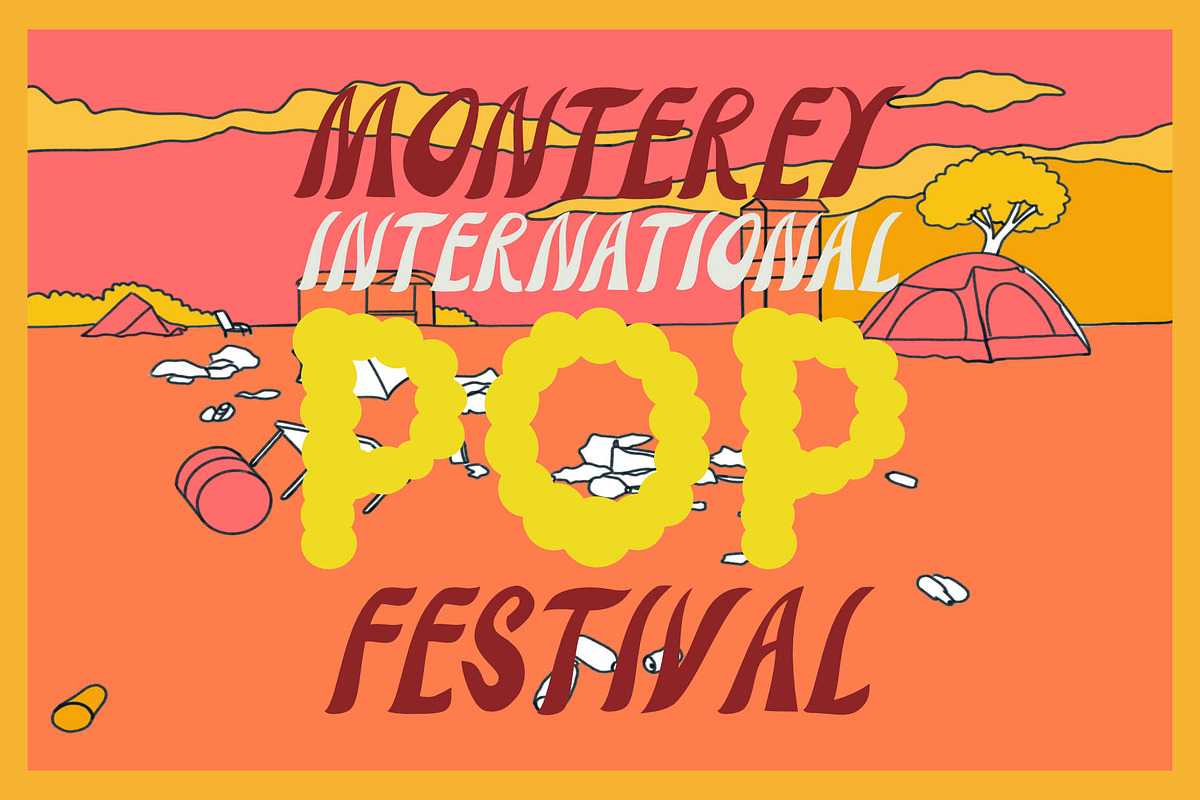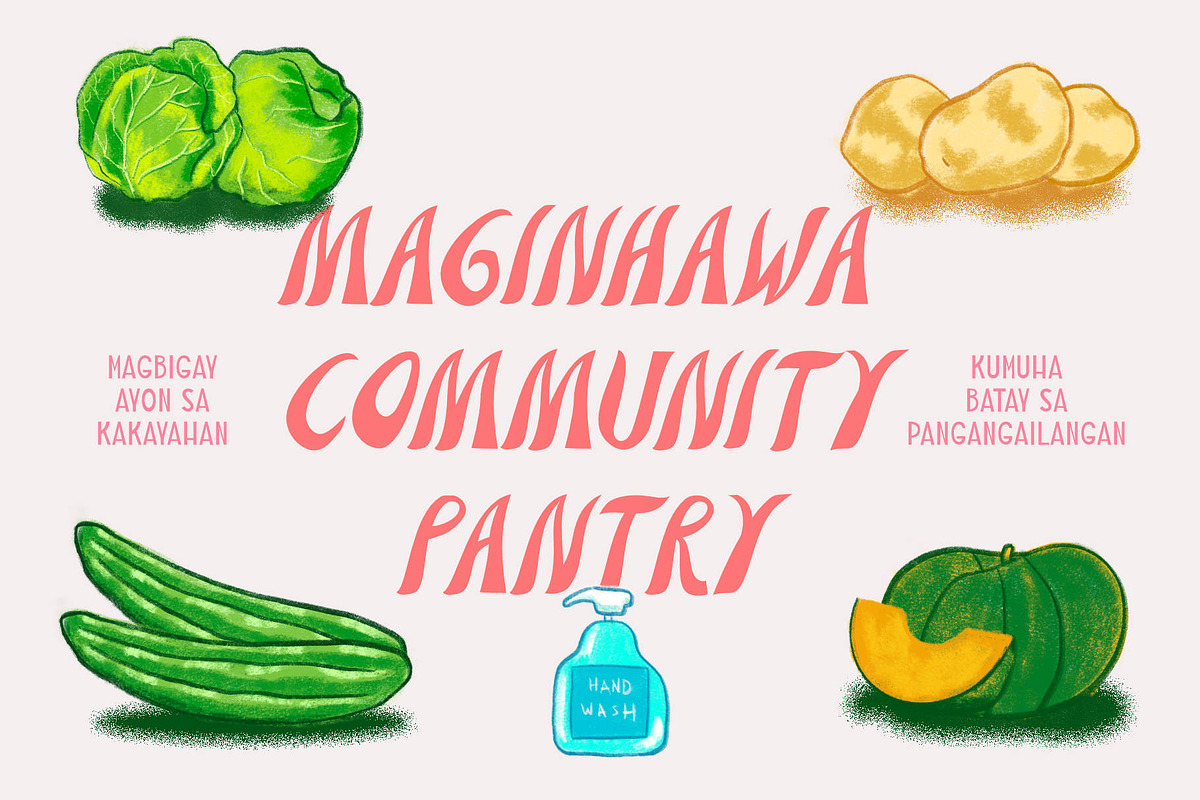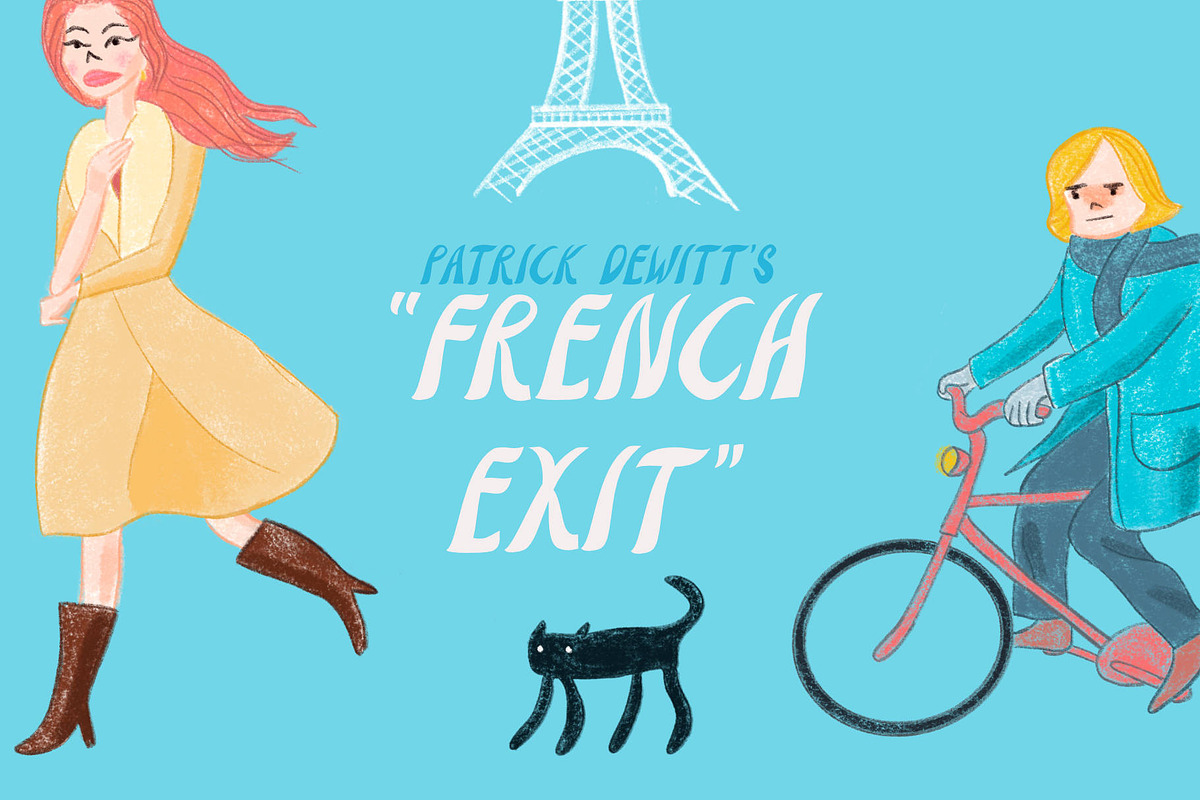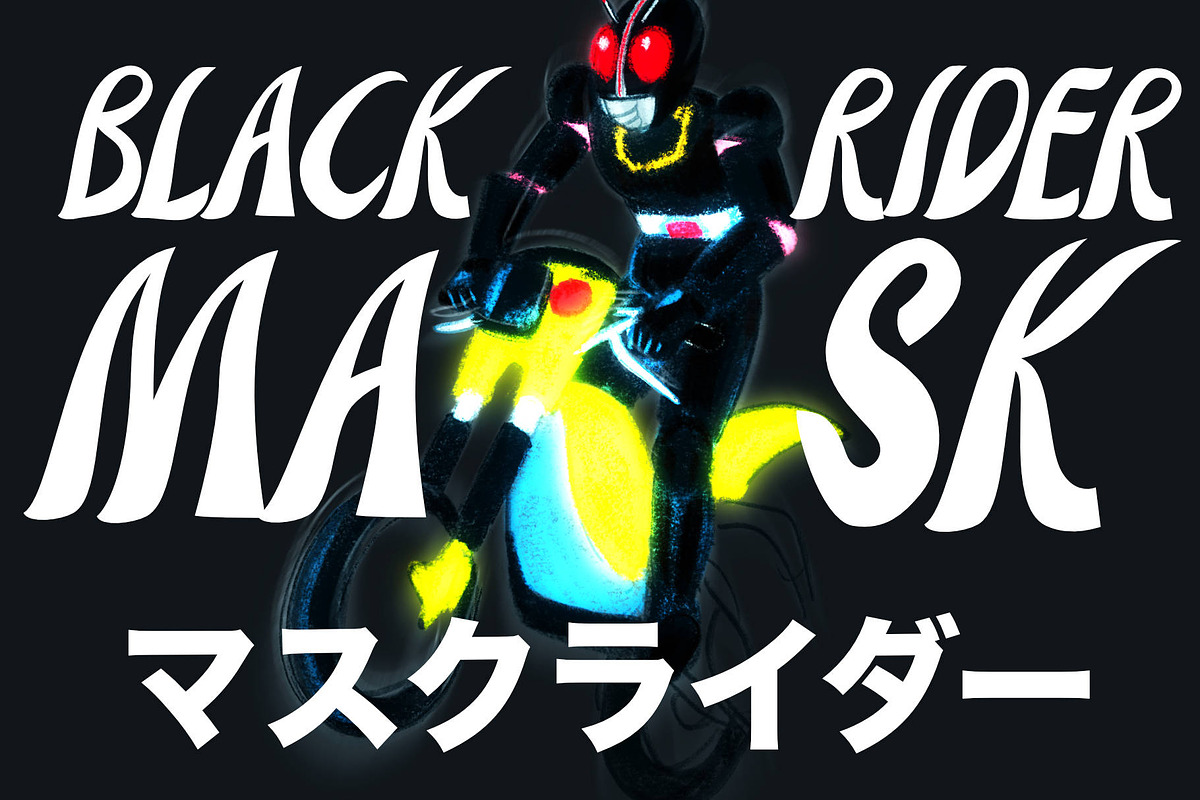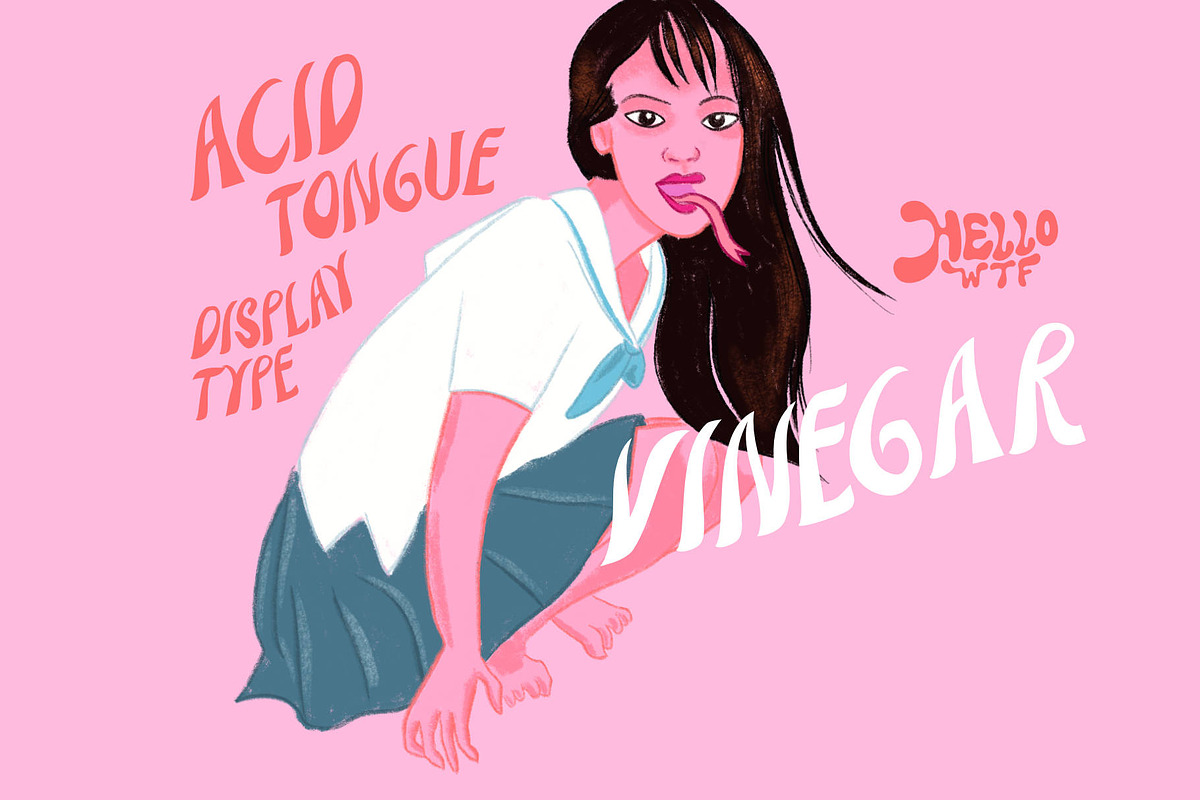
Vinegar
Vinegar is a longhand uppercase display typeface for designs that need an extra edge. Use sparingly by itself. Also goes well with rounded and plump fonts for contrast.